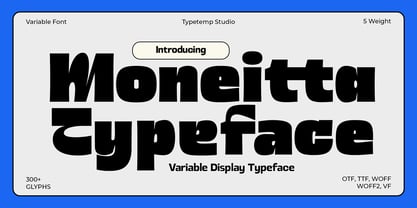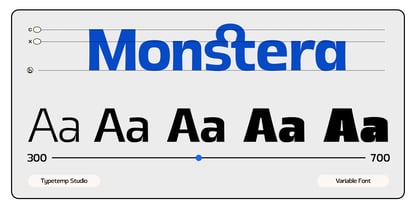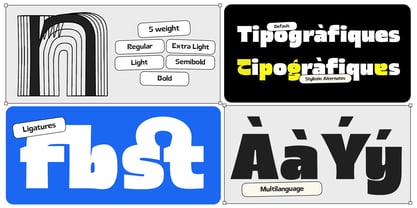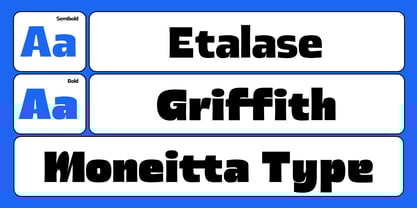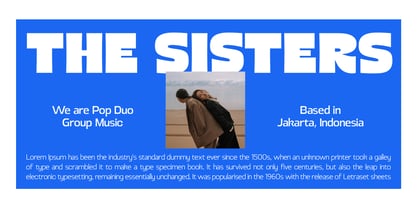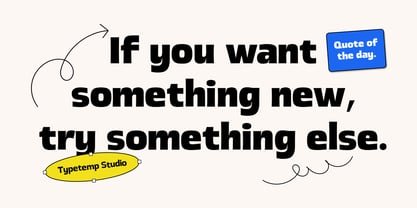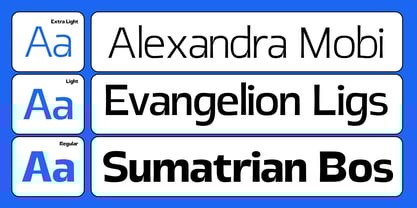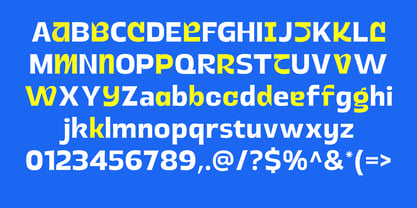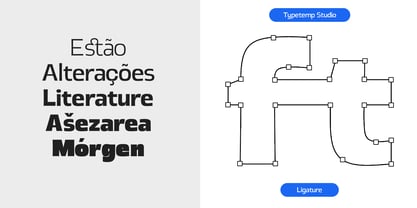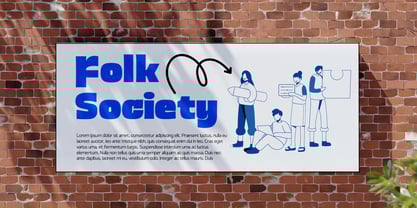
Moneitta
by Typetemp Studio
The Moneitta Font Family was designed by Haris Purnama Putra, Egi Ahmad Mufid and published by Typetemp Studio. Moneitta contains 5 styles and family package options. More about this family
Moneitta - Display Typeface is a Playful Serif Display comes with 5 Weights (Extra-Light, Light, Regular, Semibold, Bold), Variable, alternatives and ligatures, helps to create stunning Posters, Branding, Tshirt, Social Media Graphics and much more.
Designers: Haris Purnama Putra, Egi Ahmad Mufid
Foundry: Typetemp Studio